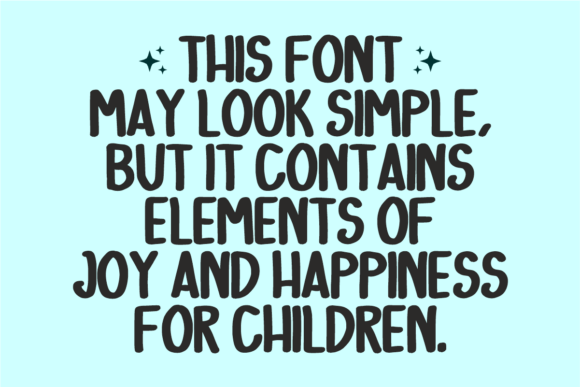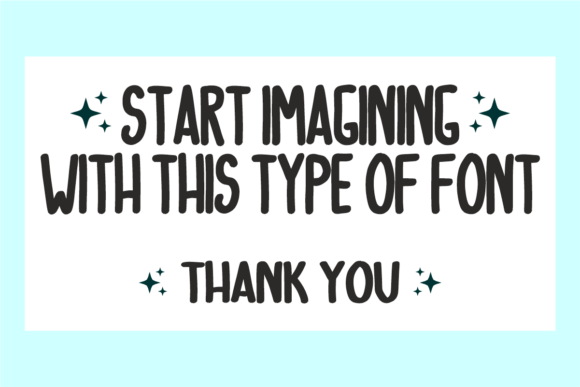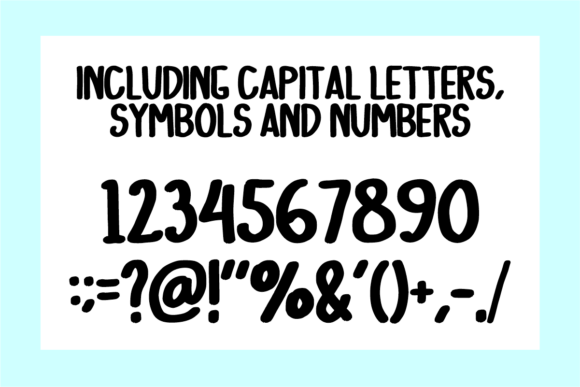
Introduction to Simple Sahira Font
Remember the moment when you finally nailed that perfect font combination for your design project? It’s like a symphony of styles coming together in harmony. For many designers, this moment is what makes all the hard work worth it. And if you’re one of those creatives always on the lookout for the next great design resource, you’re in luck!
We’re excited to introduce you to the Simple Sahira Font – a sweet, handcrafted font that’s about to become your new go-to companion for all your creative projects. Whether you’re designing a logo, creating a greeting card, or working on a t-shirt design, this font has the potential to elevate your work and make it truly special. With its high-quality design and transparent background, it’s the perfect addition to your font library.
Key Features of Simple Sahira Font
- Features a simple yet elegant design with a transparent background, allowing for flexibility in design composition.
- Designed to be highly legible and versatile, suitable for use in a variety of creative projects, from print to digital media.
- Perfect for designers and artists seeking a clean and modern font for their creative projects.
Honest Review: Simple Sahira Font
I recently had the chance to work with the Simple Sahira Font, and I must say it’s a solid addition to any designer’s toolkit. This free download is a high-quality font that’s perfect for creative projects that require a touch of elegance and sophistication.
Here are some things that work well with the Simple Sahira Font:
- ✨ Unique and stylish design that adds a personal touch to any project
- ✨ Clean and clear typography that’s easy to read
- ✨ Highly versatile, suitable for a wide range of creative projects
- ⚠️ Limited font styles and weights available
- ⚠️ Not suitable for large-scale or professional printing
Overall, I’m impressed with the Simple Sahira Font. While it may not be perfect for every project, it’s a great design resource for those looking for a high-quality, free font. I’d definitely recommend it for personal or small-scale projects.
Tips for Getting the Most Out of the Simple Sahira Font
To get the most out of the Simple Sahira Font, use it in combination with other high-quality design elements, such as images and graphics. Experiment with different font sizes, colors, and styles to create a unique look for your project. The font’s transparent background also makes it easy to use in creative projects with complex backgrounds.
The Simple Sahira Font is perfect for a variety of creative projects, including social media graphics, posters, flyers, presentations, and documents. It’s also great for free download and use in personal or commercial projects. With its high-quality design and transparent background, the Simple Sahira Font is a valuable design resource for any creative project.